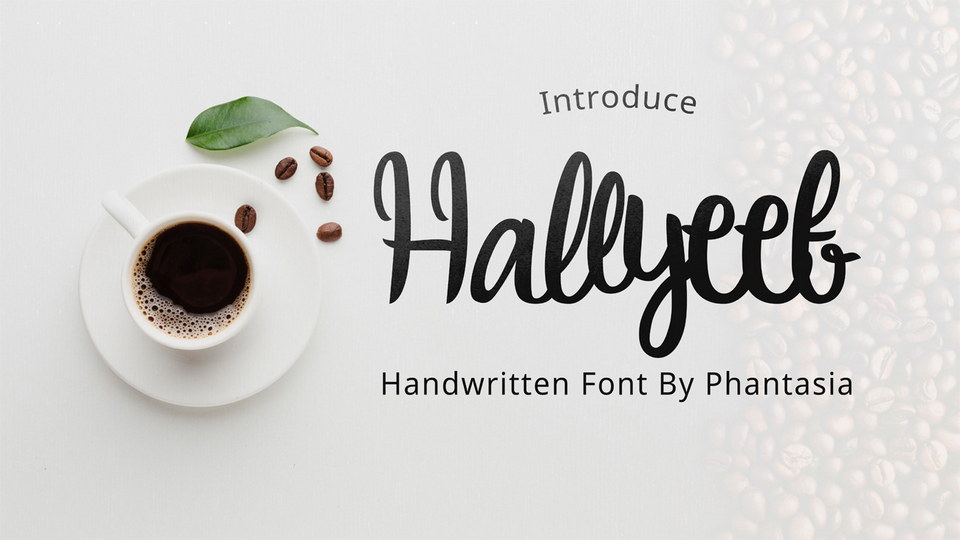
Feb 7, 2025Script & HandwrittenHallyeet Font Hallyeet is a lovely handwritten font with a natural and smooth flow. It’s perfect for crafts, ornaments, shirts, mugs, headings, blogs, invitations and more. Font DetailsDesigned by: Phantasia TypeWebsiteLicense: Free for commercial use Download Hallyeet FontFile size: 64.14 KBCreated: February 16, 2025Updated: February 16, 2025 Download Explore similar fonts Aaksaraan Rania Font Arthur Meridian Font Gelato Vanilla Font Renitta Font Christopher Lynn Font Manifestation Font # Calligraphy# Casual# Handwriting# Pretty More fonts by Phantasia TypeBalorine FontKlueka FontLorean FontThe Lewatur Font